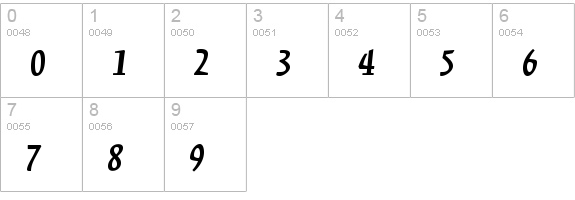
Kinesis Std Bold Italic is a strong, high-contrast, italic variant in the Kinesis typeface family \xE2\x80\x94 well suited to headlines, attention-grabbing titles, and strong calls-to-action.